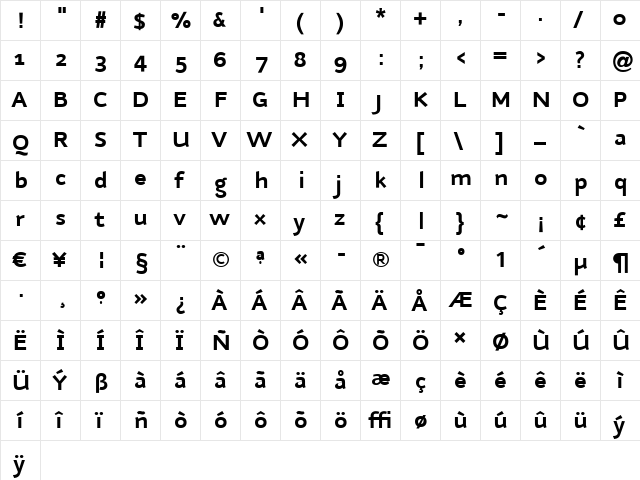
Nubian-Bold Bold
| Foundry | \ G-Type Designed and digitized by Nick Cooke |
Design Context for Nubian-Bold Typeface
Nubian-Bold is a composed and adaptable typeface that performs quietly and consistently across a wide range of design contexts. The heavy weight commands attention and anchors typographic hierarchies.